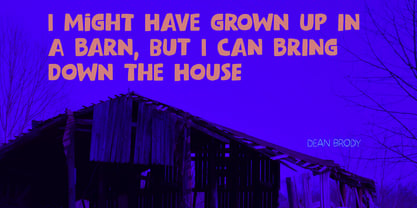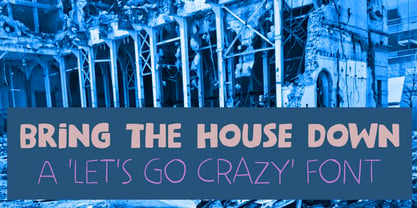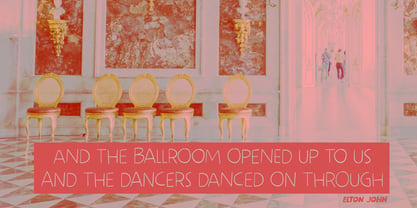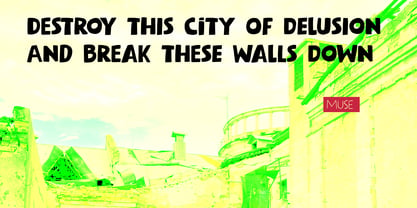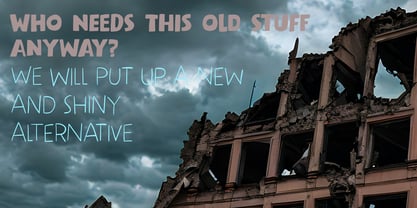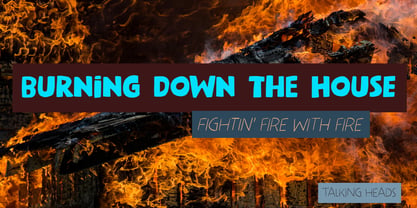
Bring The House Down
by Hanoded
Bringing The House Down is a 2003 comedy, starring Steve Martin and Queen Latifah. I have to admit I have never watched it, but it did remind me of a recent event where a famous mansion was half destroyed. Bring The House Down consists of 2 distinct fonts (and their Italics). It can be used for advertising, packaging and book covers, but these handmade fonts will look good in any project. Both fonts come with a full set of alternates.
About Hanoded
Hanoded is run by Dutchman David Kerkhoff. His fonts are a mishmash of styles, as he just creates whatever pops into his head. You will find a lot of brush fonts in his collection, as his favourite tools are brushes and Chinese ink, with cartoon style fonts and script fonts complementing his repertoire. Aside from making fonts, David occasionally guides tours in far-flung places, renovates his '30's house and tries reasoning with his wife and (teenage) kids. Not an easy task!